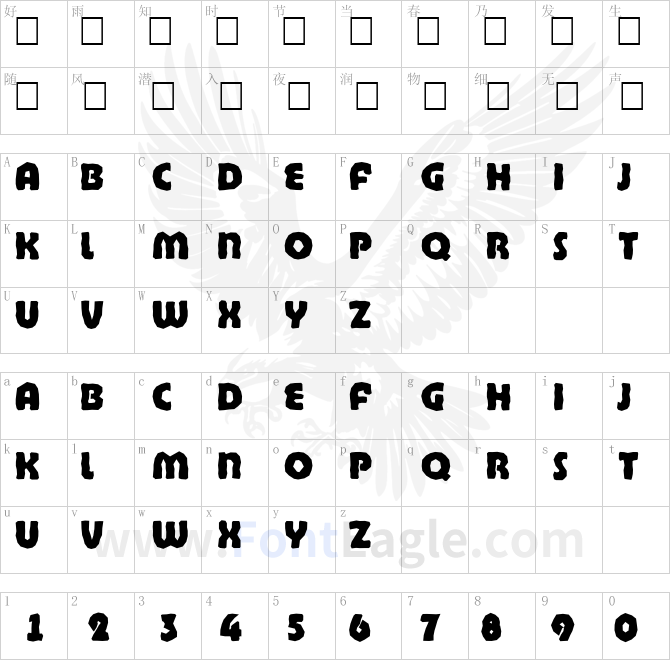
- Font name:a_BighausTitulBrk
- Font Subfamily ID:a_BighausTitulBrk ExtraBold
- Font Full Name:a_BighausTitulBrk ExtraBold
- Font Version:01.01
- Postscript:a_BighausTitulBrk-ExtraBold